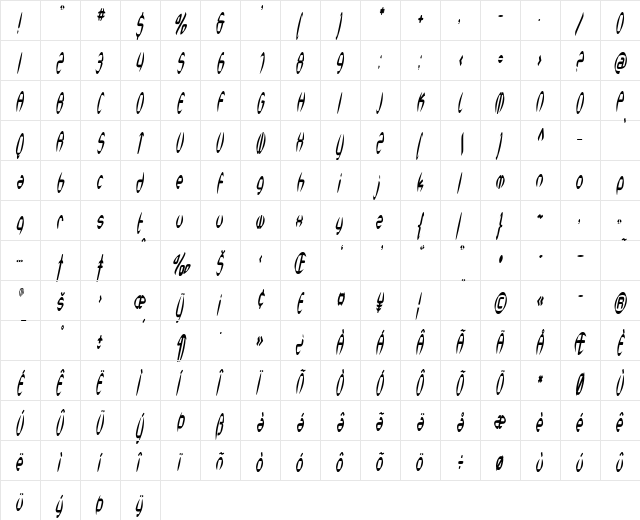
SF Synthonic Pop Condensed Oblique Font Preview
Design Context for SF Synthonic Pop Condensed Typeface
SF Synthonic Pop Condensed offers clean, dependable letterforms without strong stylistic allegiance, making it a practical choice for designers who need flexibility. Its italic angle brings a sense of urgency and motion to the letterforms. Its narrow stance lets it pack a punch even in space-constrained designs.